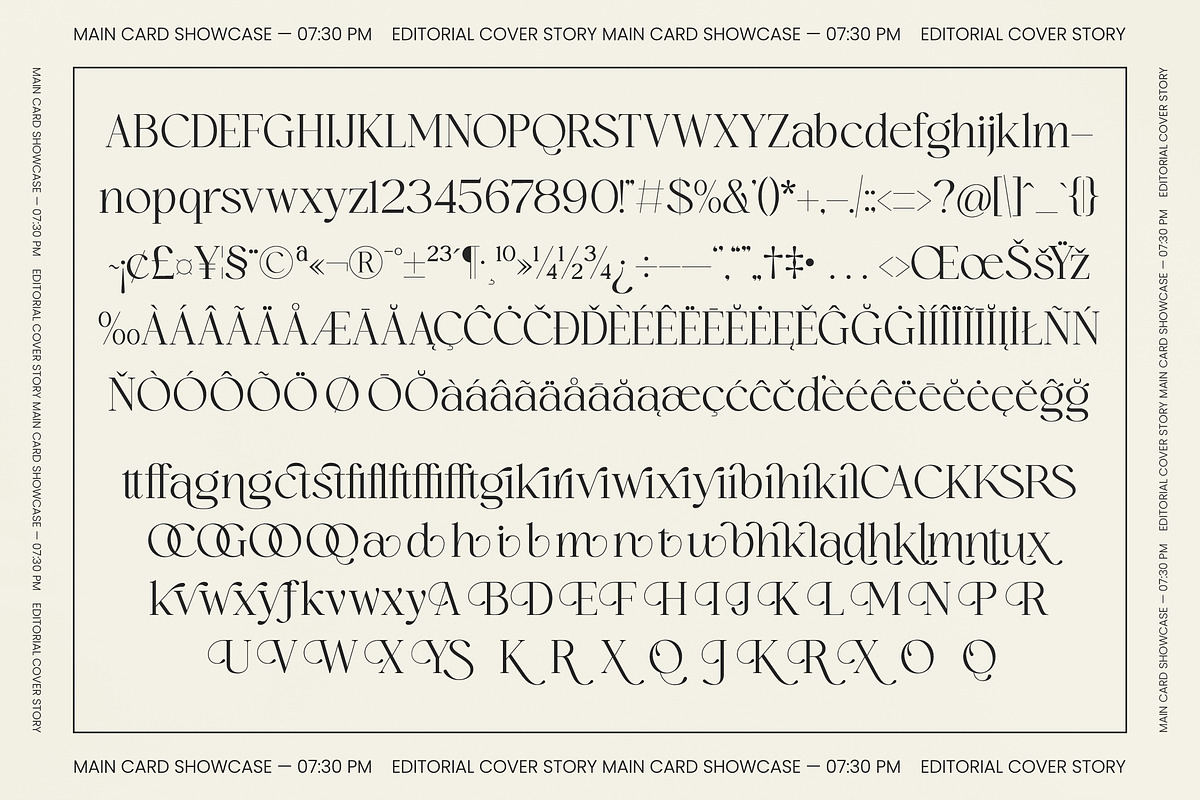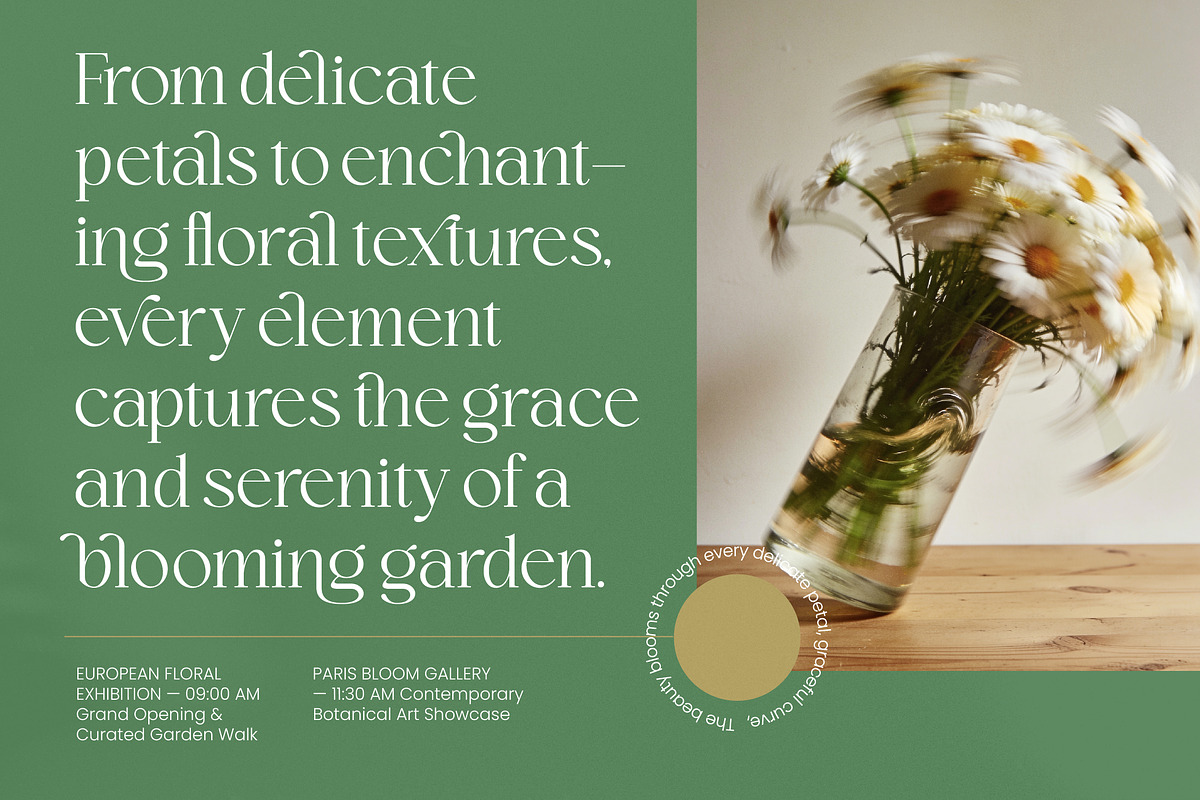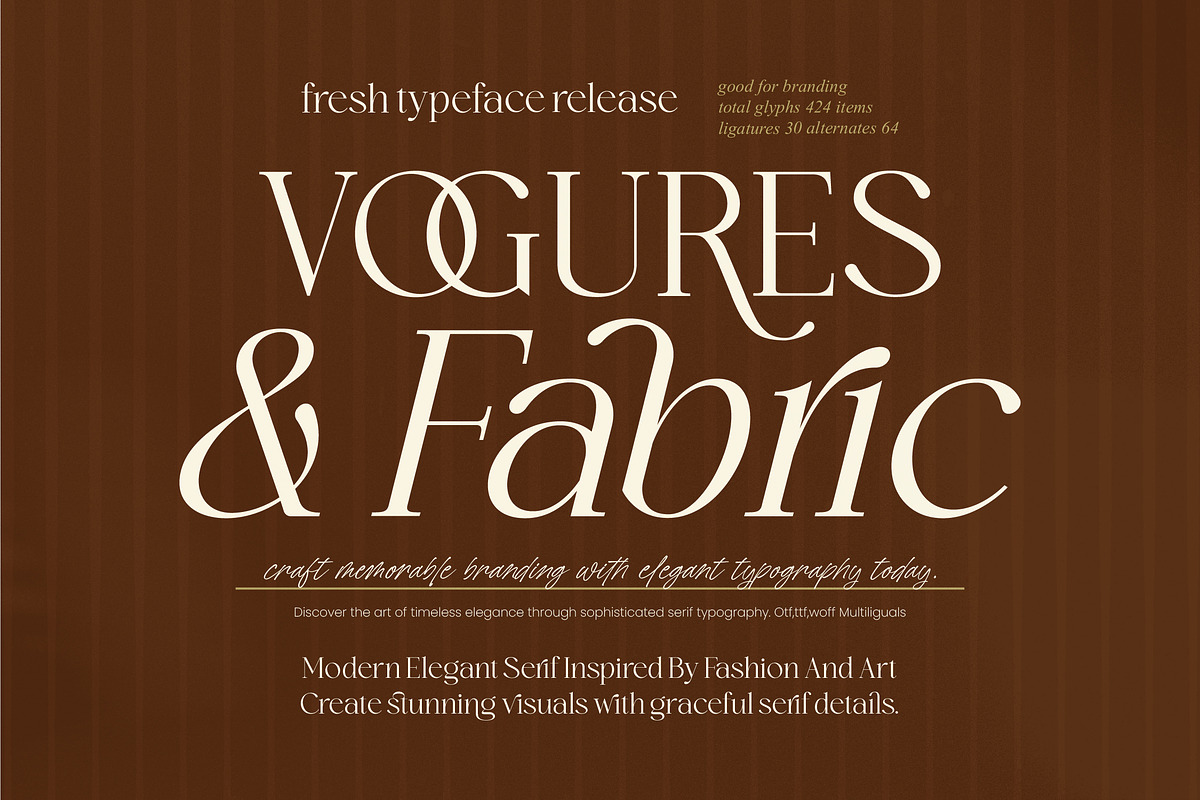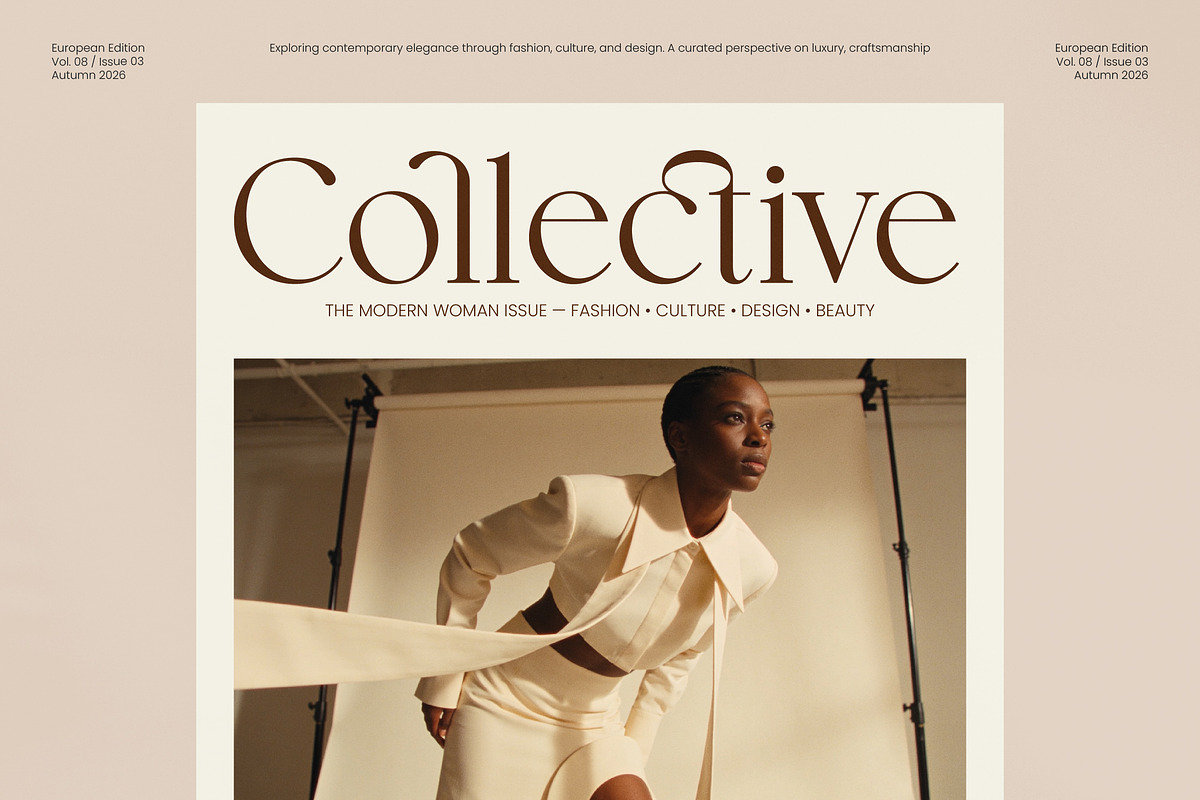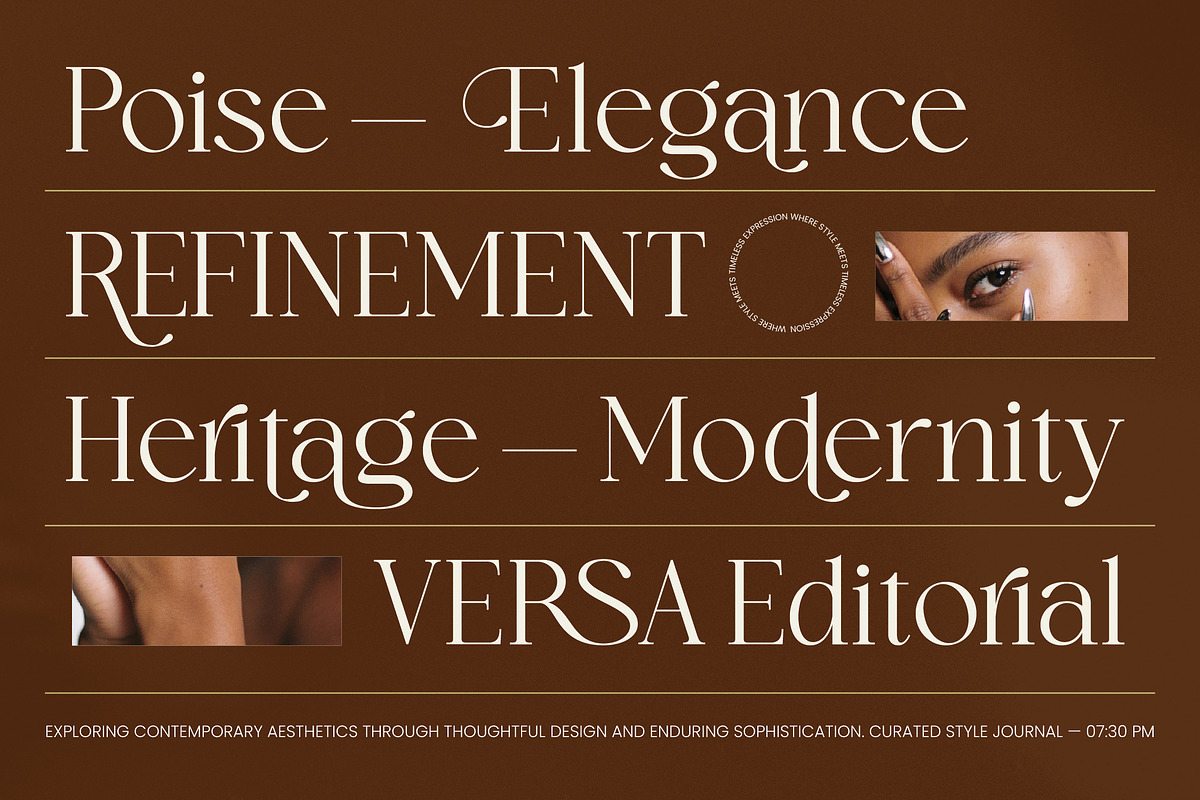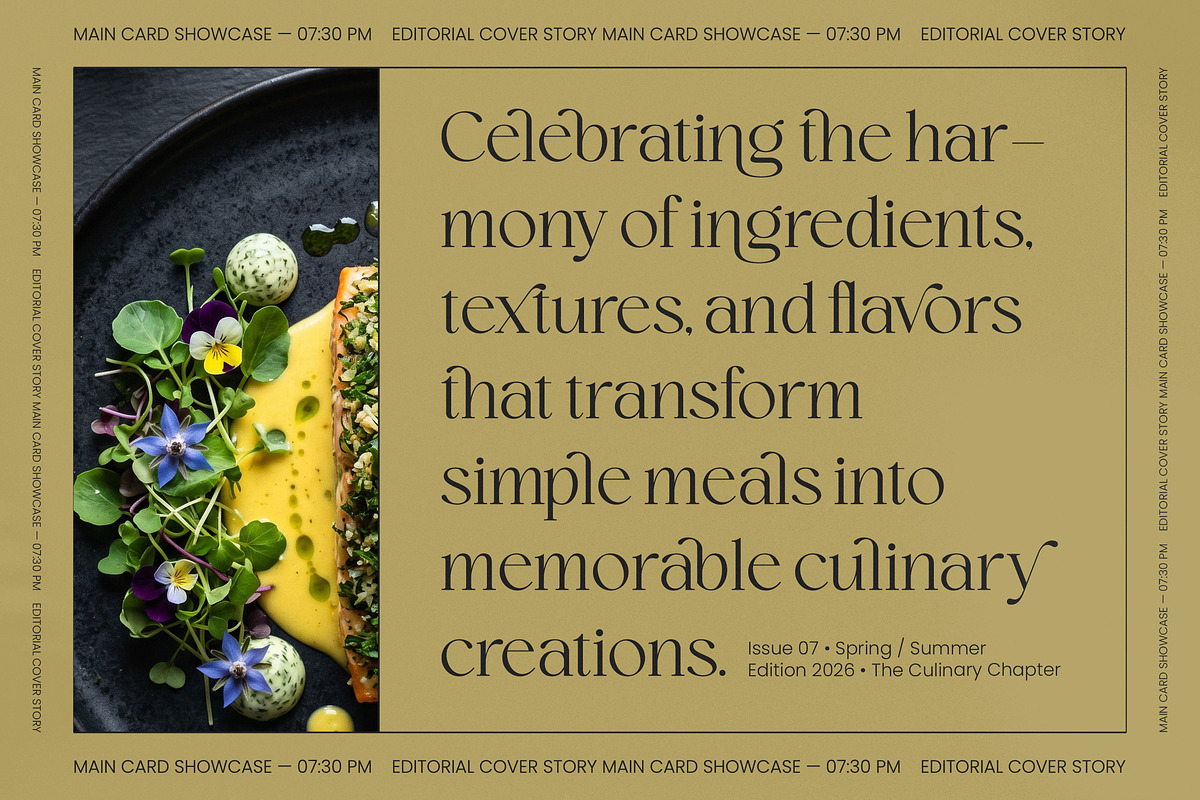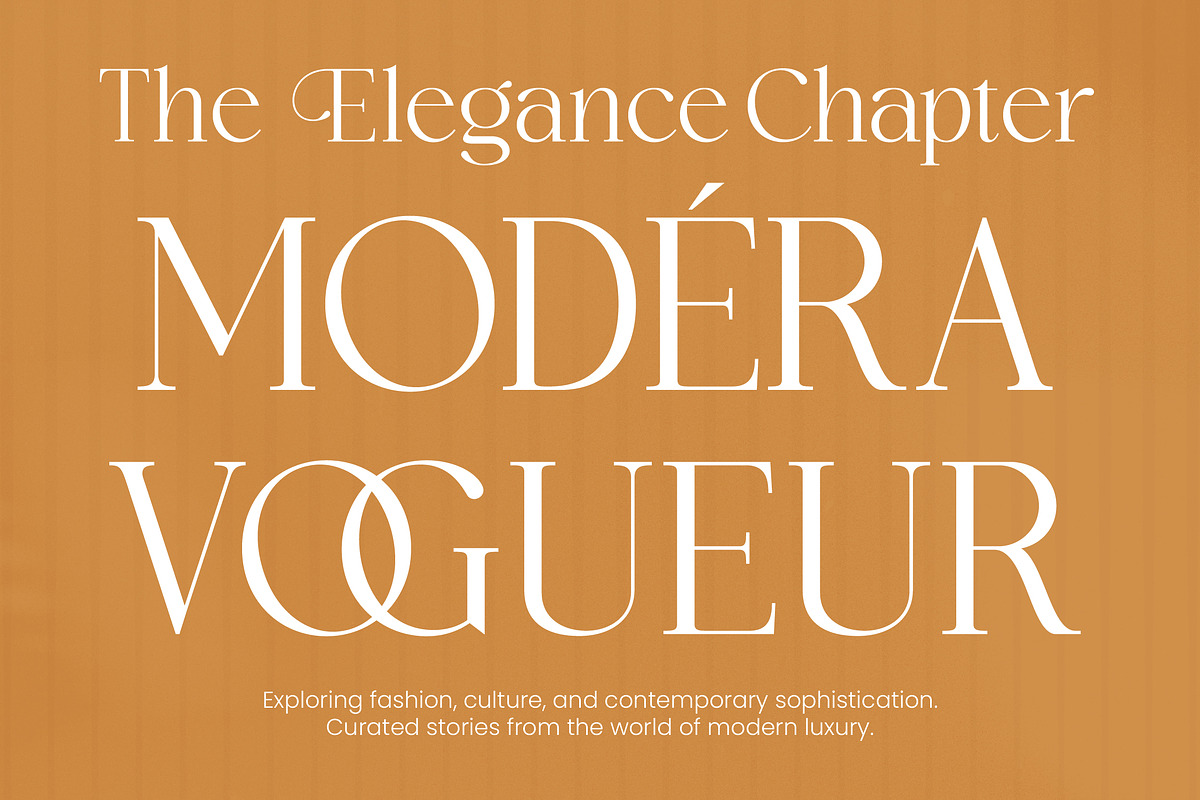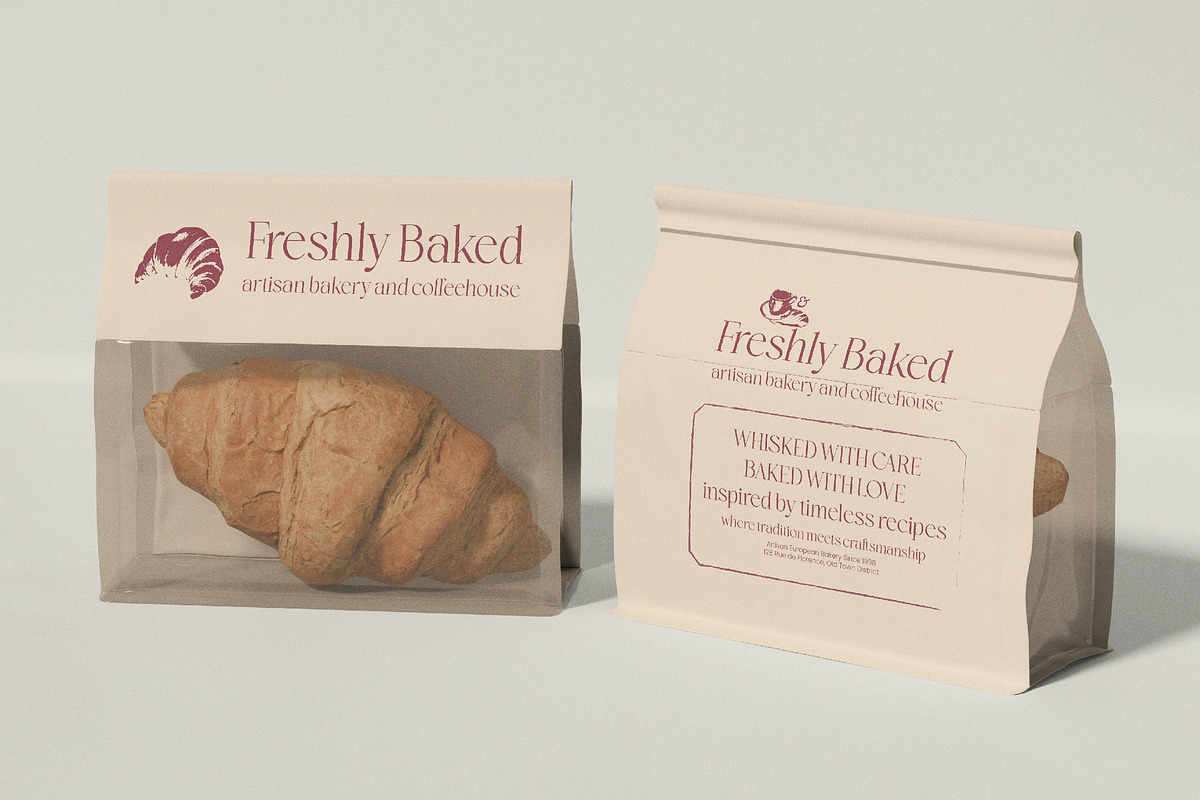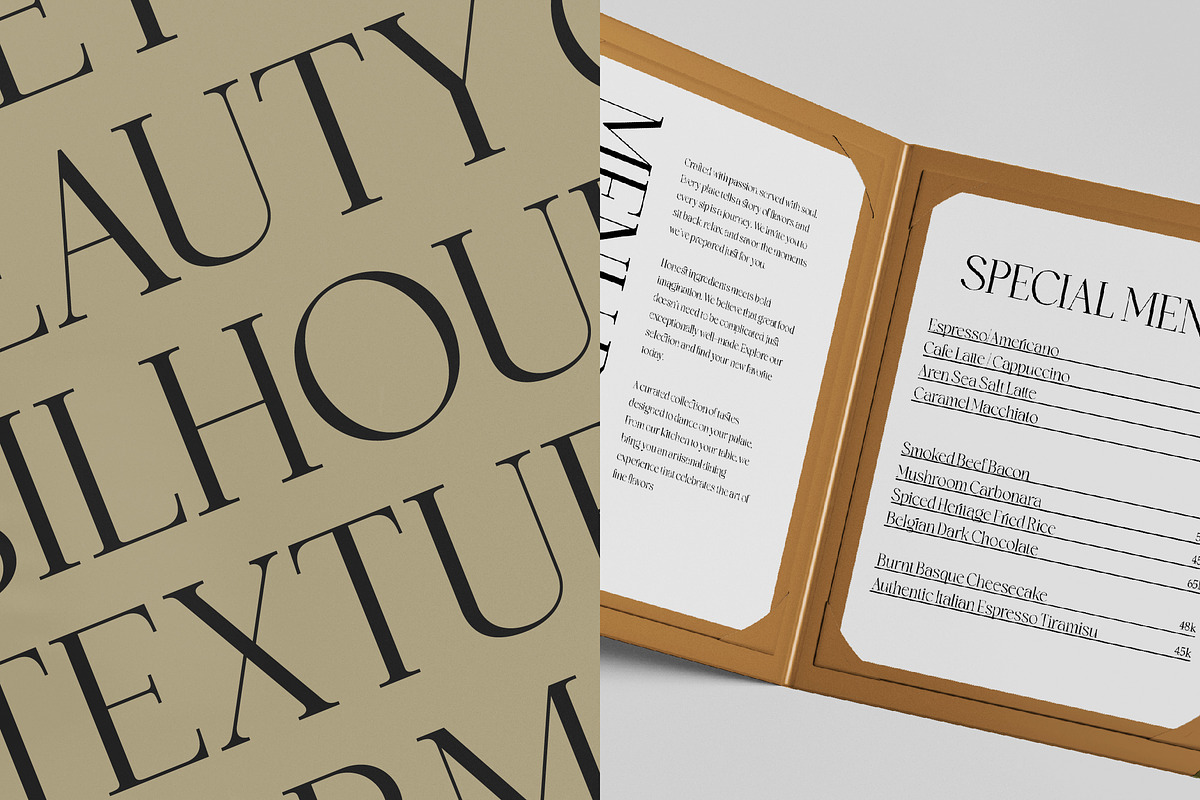
Vogures Fabric Modern Elegant Serif
Vogures Fabric – Modern Elegant Serif , Elevate your brand’s visual identity with a typeface that embodies the pinnacle of sophisticated design. Vogures Fabric – Modern Elegant Serif is a masterpiece of high-contrast letterforms and graceful curves, meticulously crafted to resonate with the fashion and art industries. This typeface strikes a perfect balance between timeless elegance and modern aesthetics, ensuring that every headline captures attention with professional poise. By integrating Vogures Fabric – Modern Elegant Serif into your creative workflow, you command a sense of luxury and prestige that is essential for high-end market positioning.
Expand your creative horizons with a technical powerhouse designed for global reach and seamless functionality. With its extensive multilingual support, Vogures Fabric – Modern Elegant Serif adapts seamlessly across global markets, making it incredibly versatile for international projects. Boasting over 400 glyphs, including a rich selection of custom ligatures and alternates, this font provides designers with the flexibility needed to create truly unique and bespoke typography. The technical precision of Vogures Fabric – Modern Elegant Serif ensures flawless rendering across both digital and print platforms.
Unlock the full potential of your editorial and commercial projects with a font optimized for maximum visual impact. Vogures Fabric – Modern Elegant Serif is the ideal application for luxury branding, high-end packaging, and editorial design in fashion magazines. It is perfect for creating distinctive logos, chic invitation suites, and compelling advertising campaigns that require a touch of class. Whether utilized in large-scale displays or refined brand identities, Vogures Fabric – Modern Elegant Serif delivers an unparalleled level of typographic excellence.
Secure a timeless asset for your professional design toolkit and transform your creative vision into a tangible reality. Vogures Fabric – Modern Elegant Serif is more than just a typeface; it is a commercial investment in quality and style. Its graceful serif details and harmonious proportions make it a must-have resource for agencies and freelance designers seeking to deliver premium results. Choose Vogures Fabric – Modern Elegant Serif to ensure your next project stands out with an authentic, modern elegance that leaves a lasting impression on your audience.